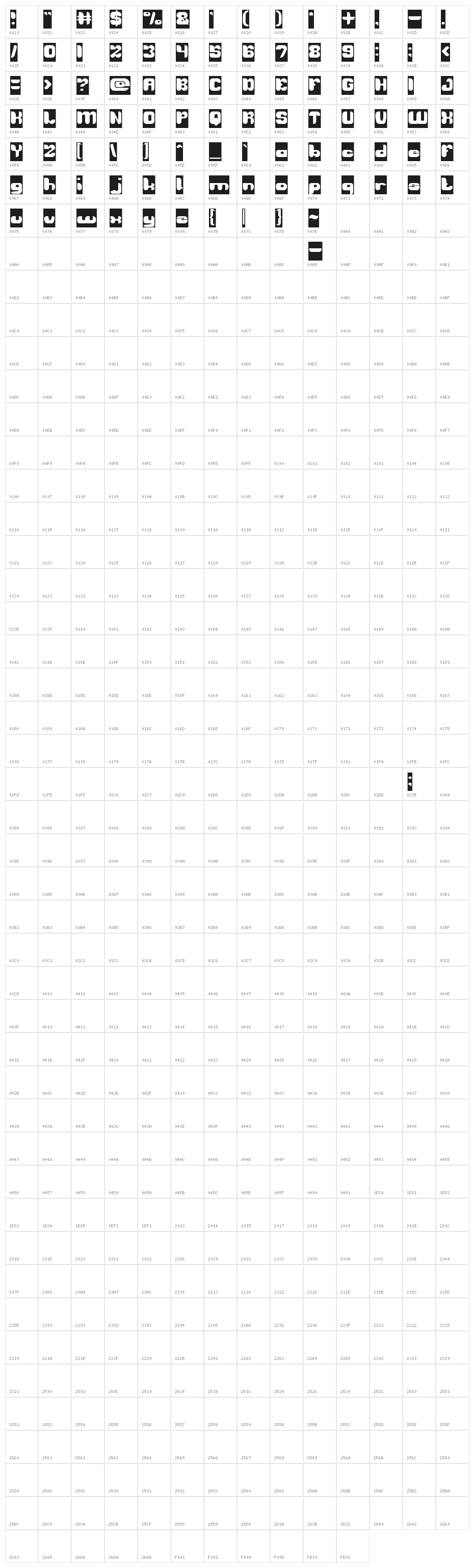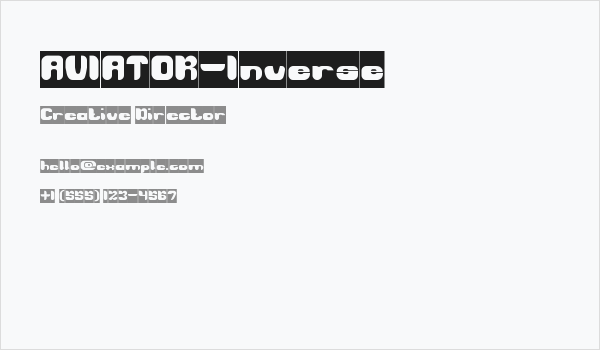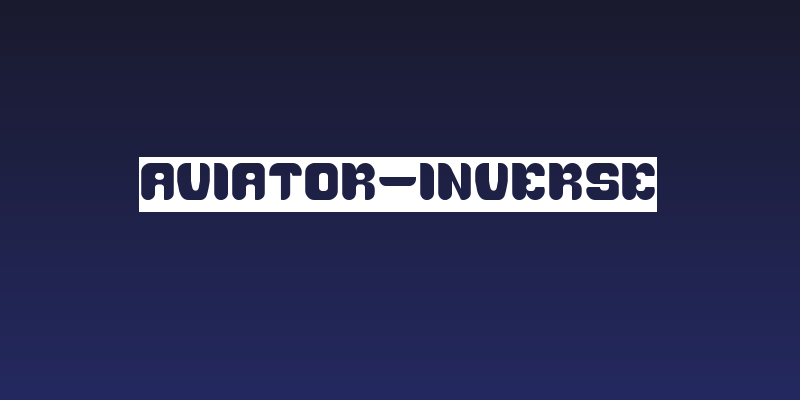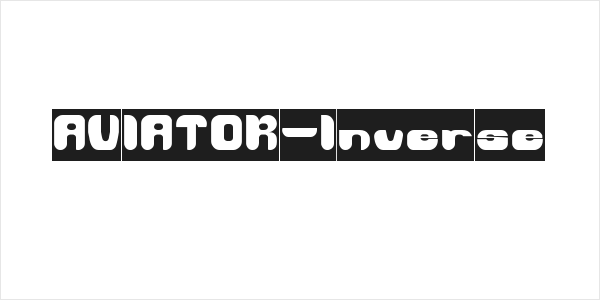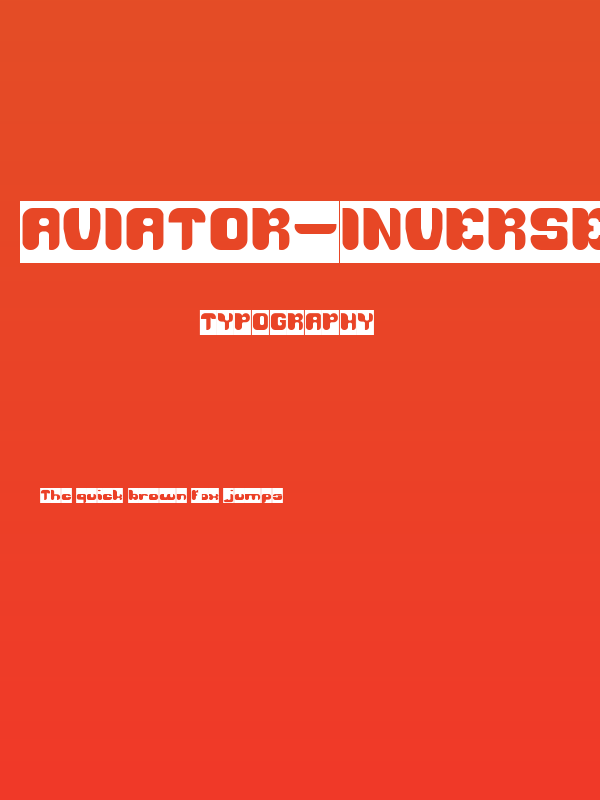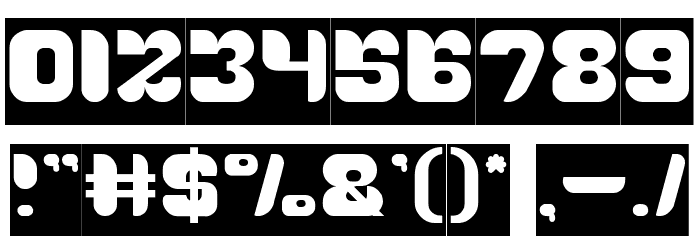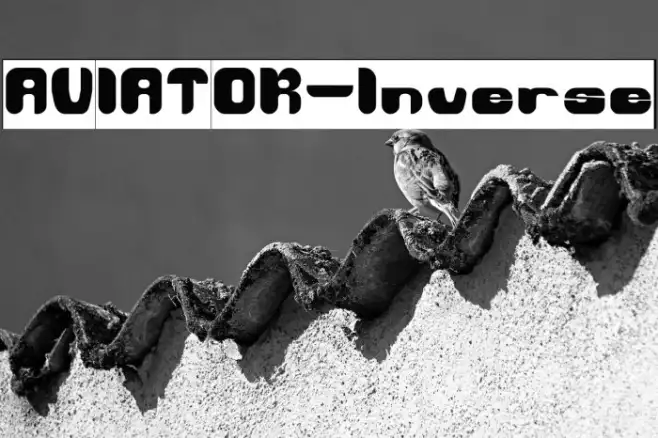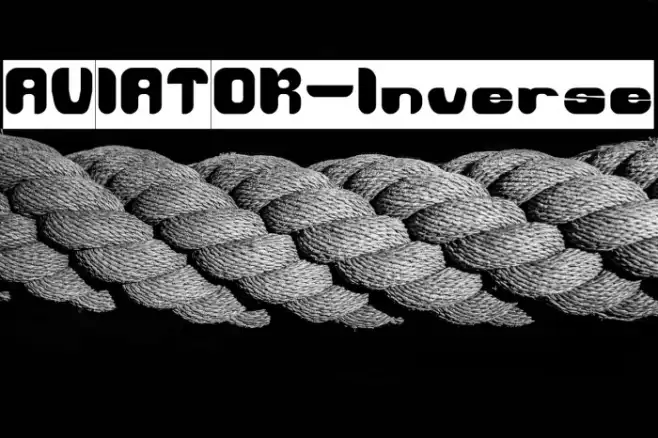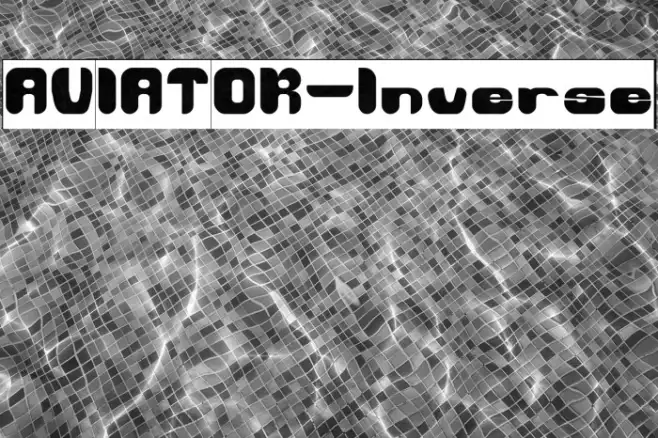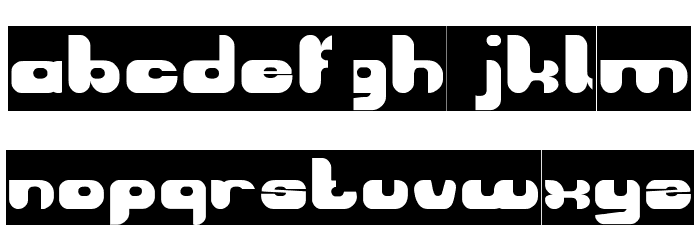
AVIATOR-Inverse Font
AVIATOR-Inverse Description
This font features a bold and striking design with a unique inverse style, where the negative space within the characters creates a distinctive visual effect. The characters are rounded and have a playful, almost retro aesthetic, making them stand out. The uppercase and lowercase letters maintain a consistent style, with the lowercase being slightly more compact. Numbers and special characters follow the same design principles, ensuring uniformity across the font. This font's boldness and unique style make it ideal for eye-catching designs.
AVIATOR-INVERSE UPPERCASE
AVIATOR-INVERSE LOWERCASE
AVIATOR-INVERSE OTHER CHARS
| Overall Style | Retro, Playful |
| Proposed Projects | Ideal for posters, logos, branding, and any project requiring a bold, standout typeface. |